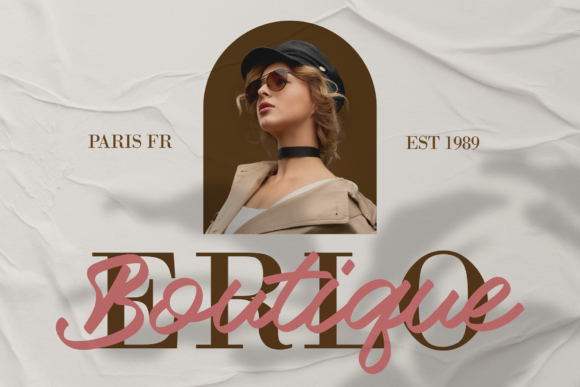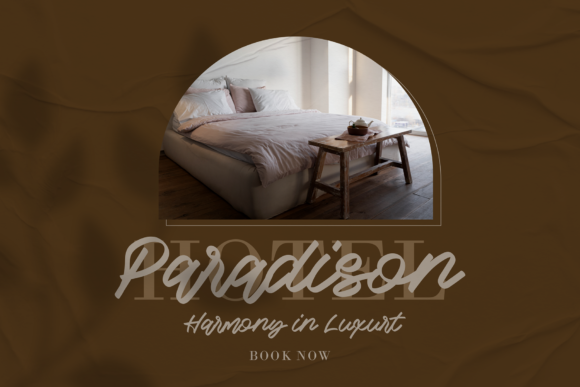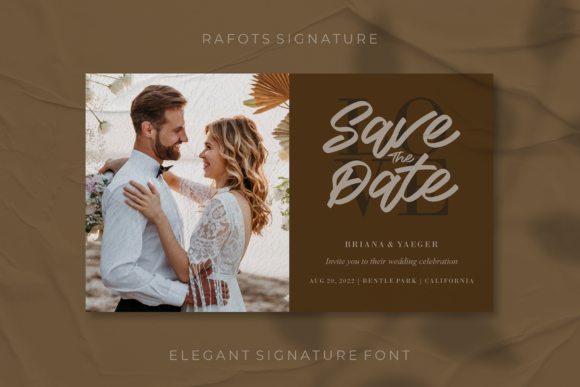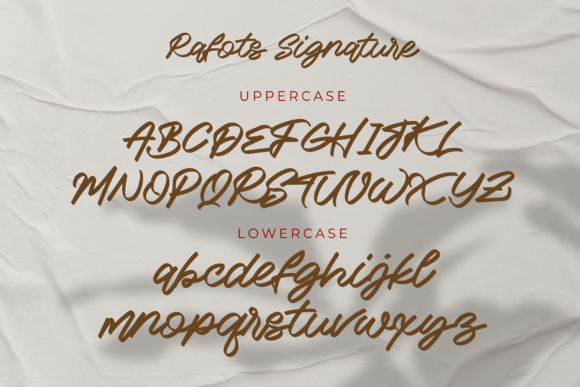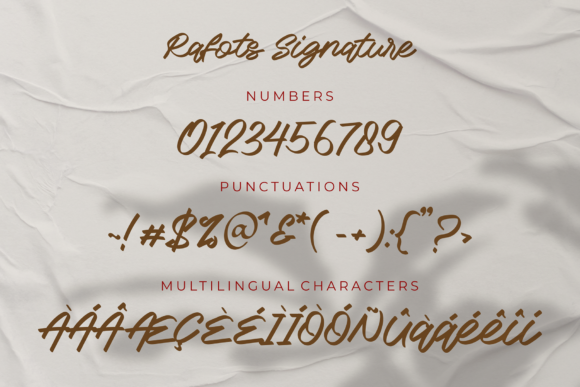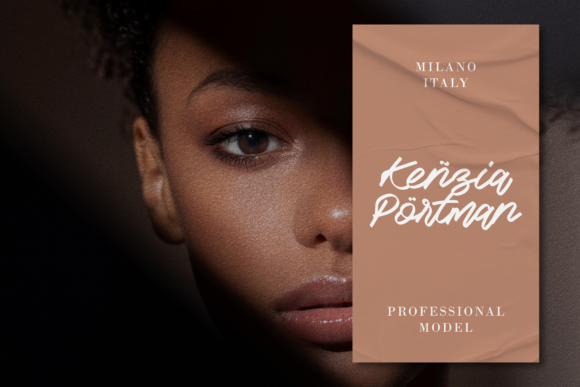
Introduction to Rafots Signature Font
Rafots Signature is a fashionable and delicate script font.
It is suitable for any projects such as: logos, branding projects, label, photography, watermark, special events, and all your other lovely projects that need a beautiful script taste .
Rafots Signature Font offers exceptional quality and versatility, making it a valuable addition to your design toolkit. Whether you’re creating for personal projects or commercial use, Rafots Signature Font delivers professional results.